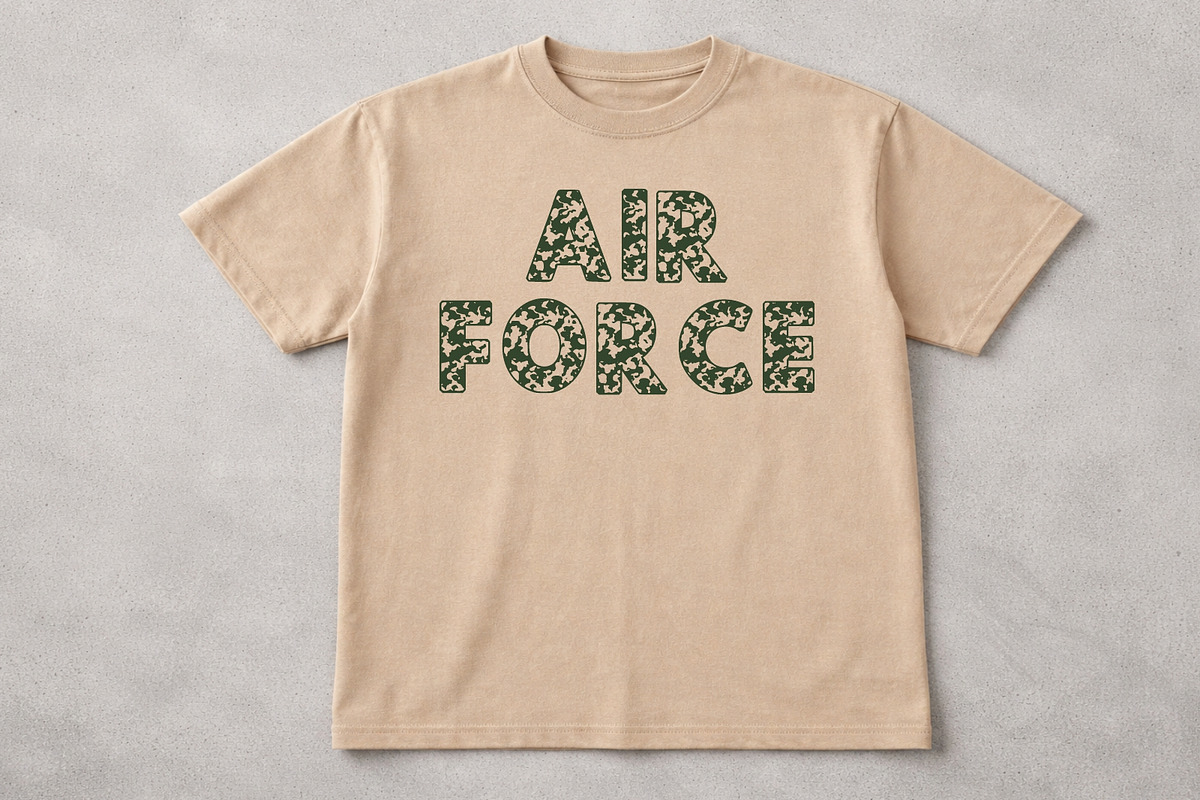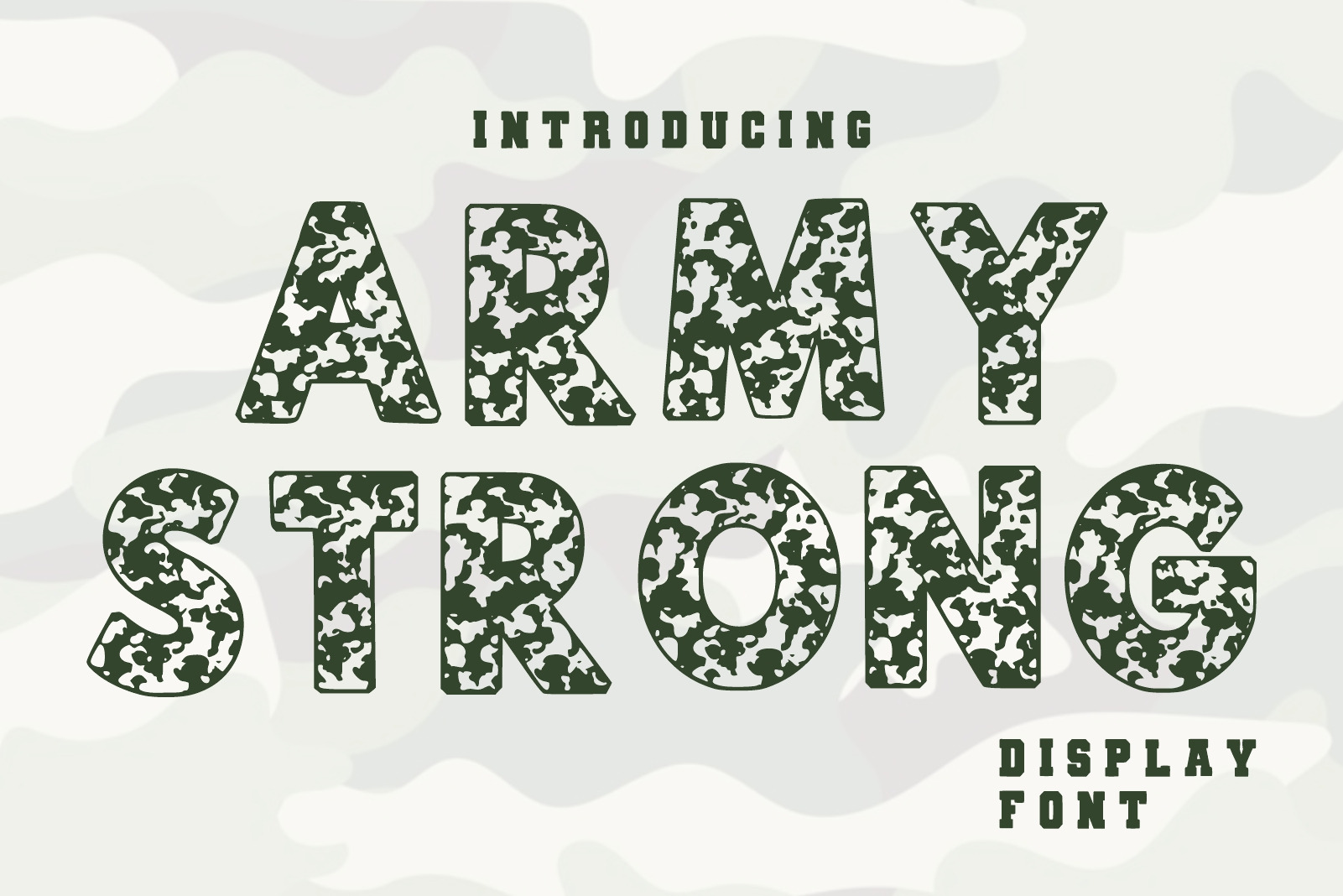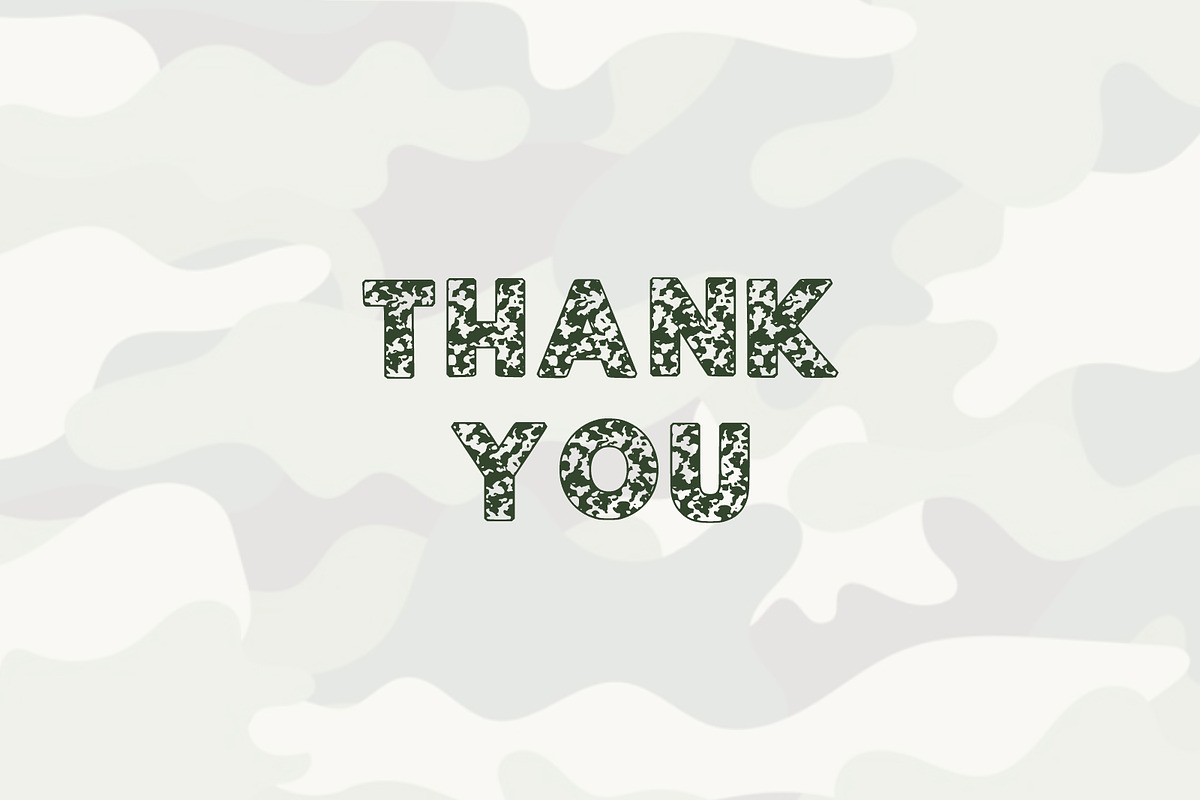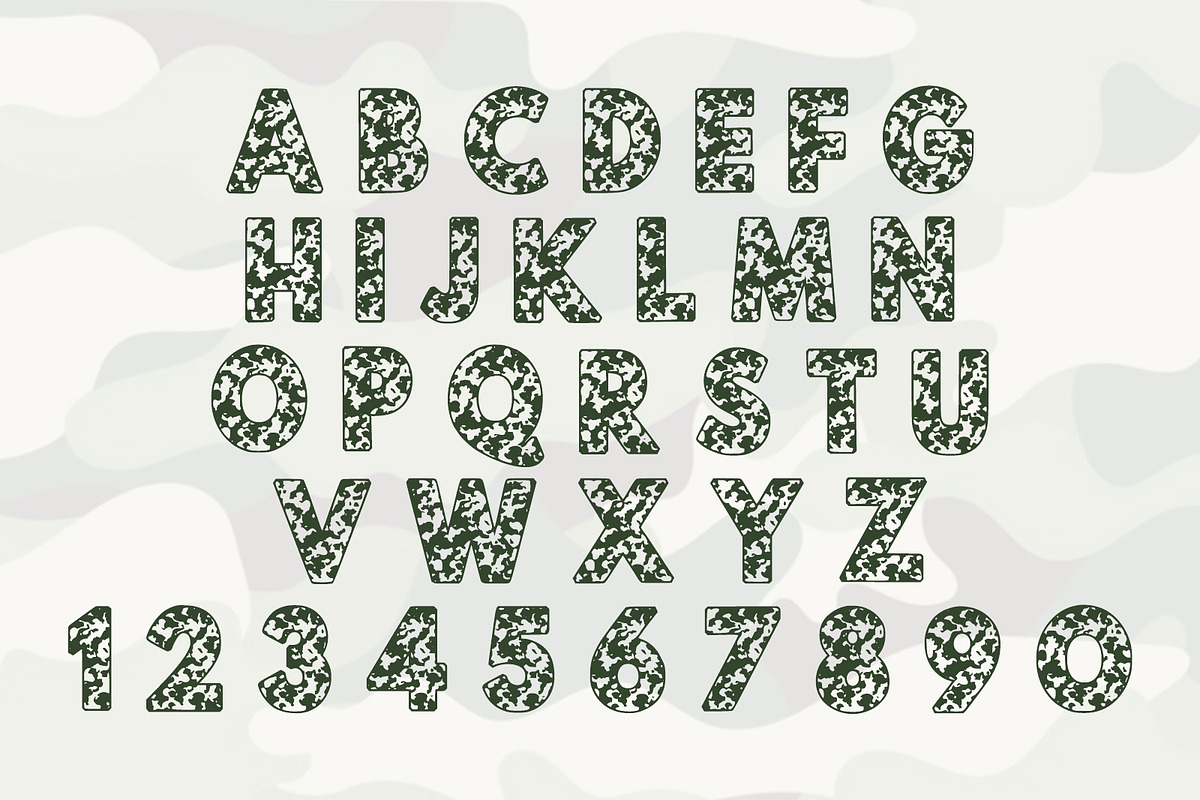
Army Strong Camouflage Display Font
Army Strong Camouflage Display Font is a bold military-inspired typeface featuring a unique camouflage texture inside each letter. Designed to reflect strength, toughness, and tactical style, this font is perfect for army-themed designs, military branding, tactical graphics, posters, logos, apparel prints, and outdoor projects. Its strong letterforms combined with the camo pattern create a powerful and rugged look that stands out in any design.